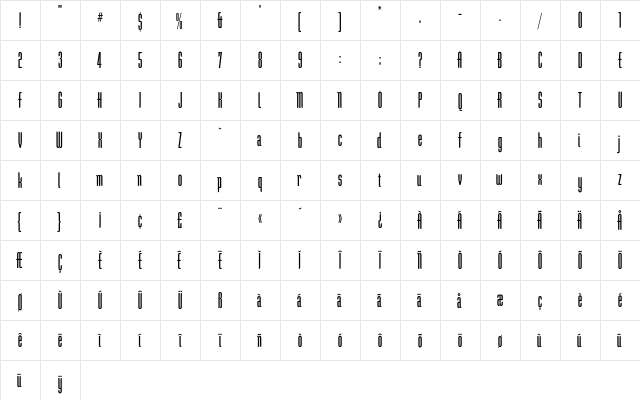
Demonstrator Regular
Design Context for Demonstrator Typeface
Demonstrator offers clean, dependable letterforms without strong stylistic allegiance, making it a practical choice for designers who need flexibility.
Pro Tip: Use Demonstrator in both headline and body roles to test its range before committing to a single application.